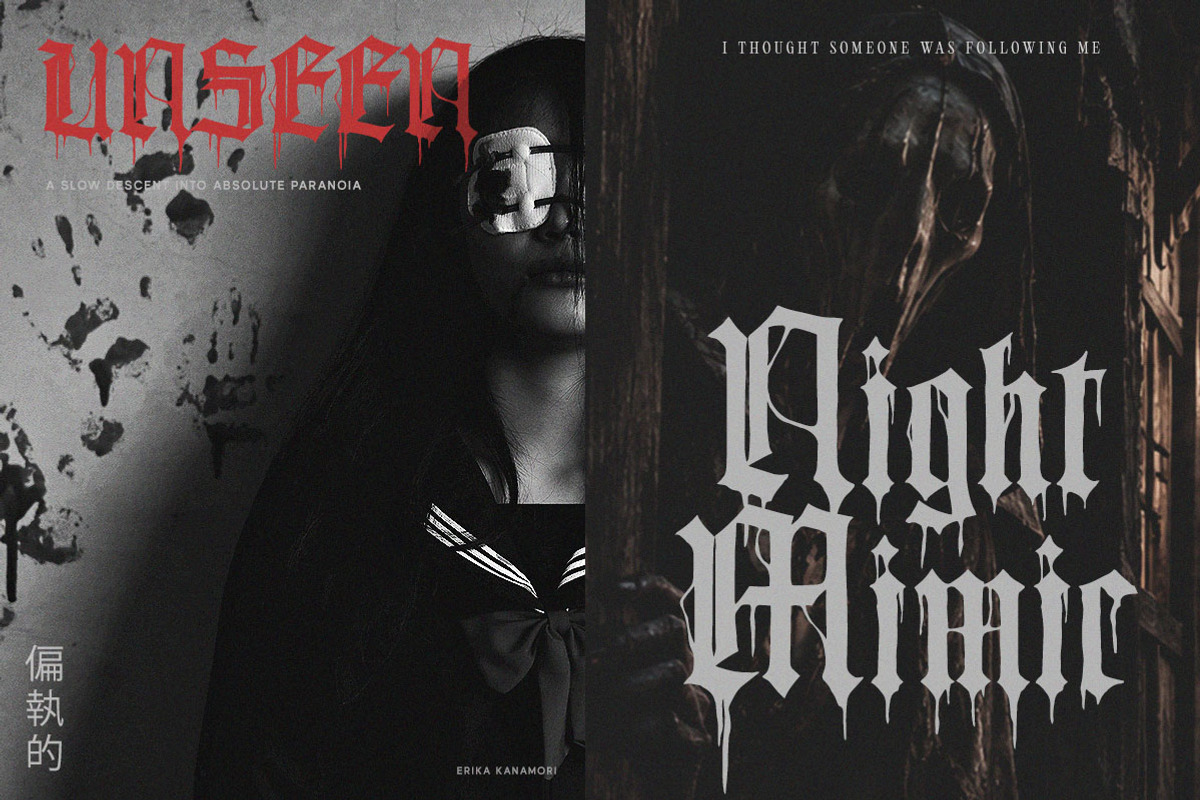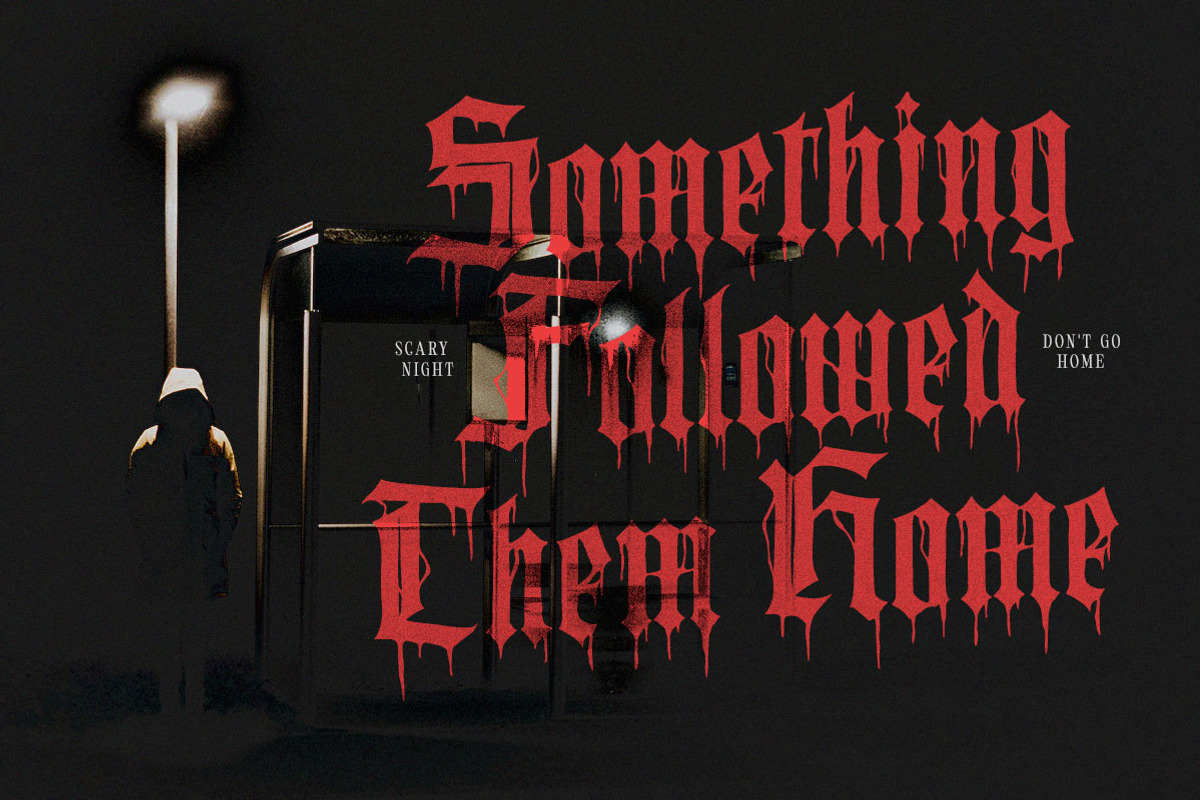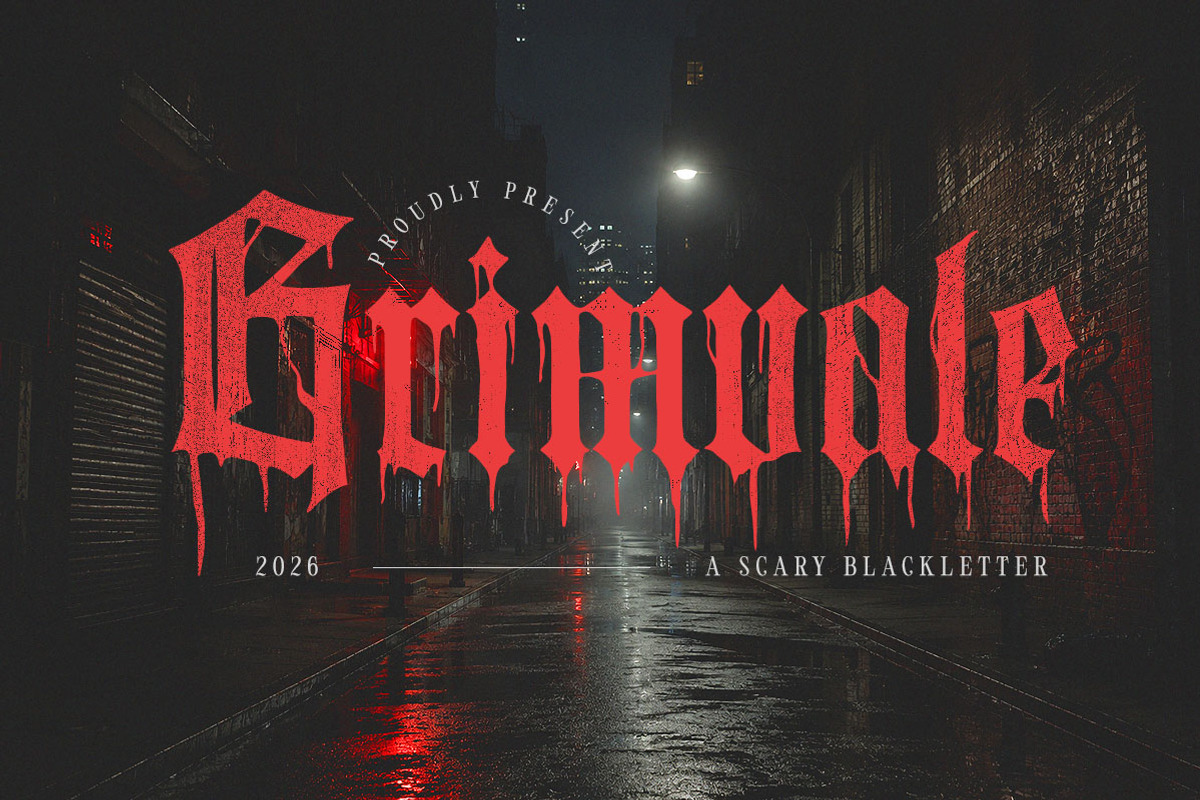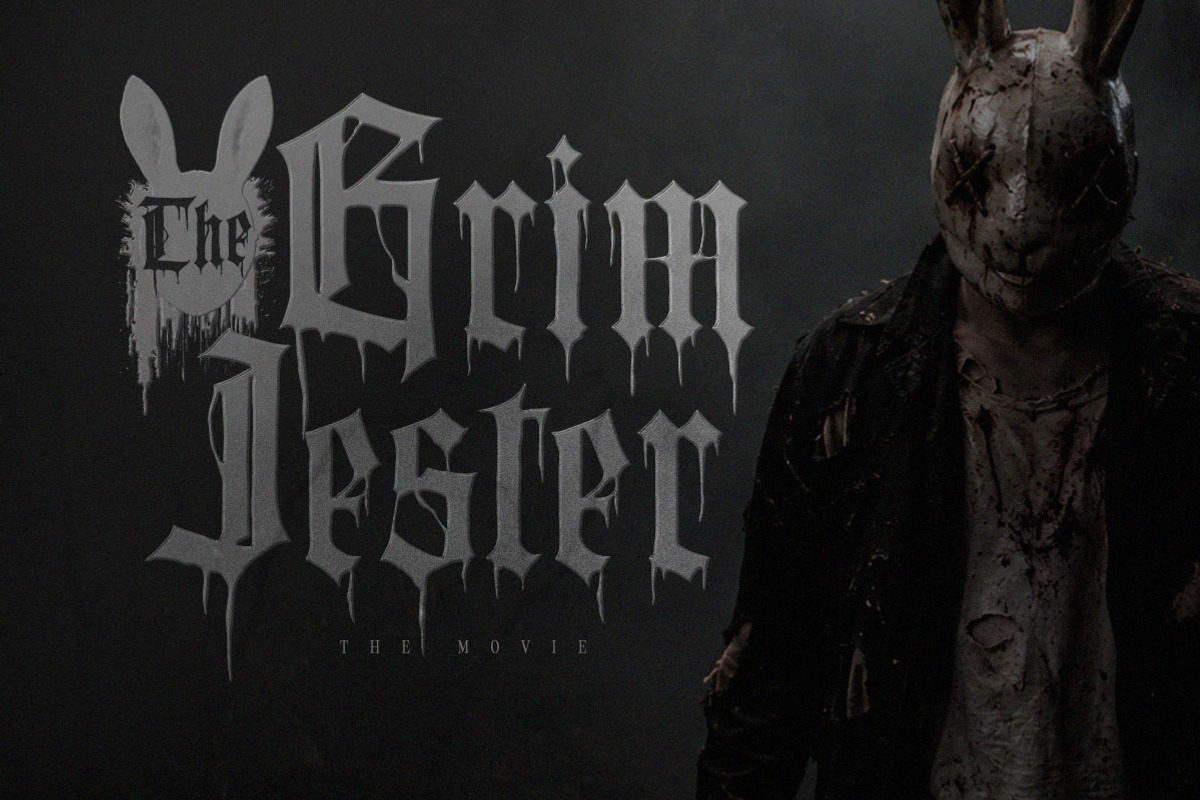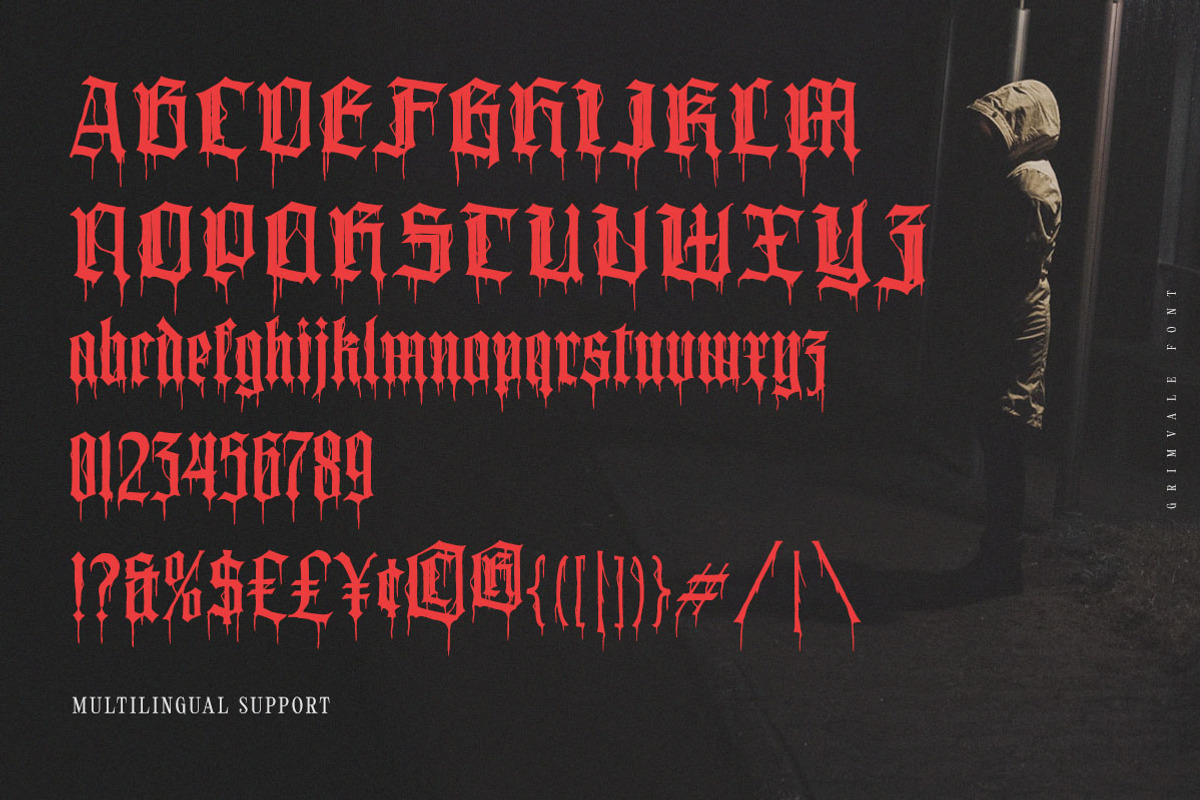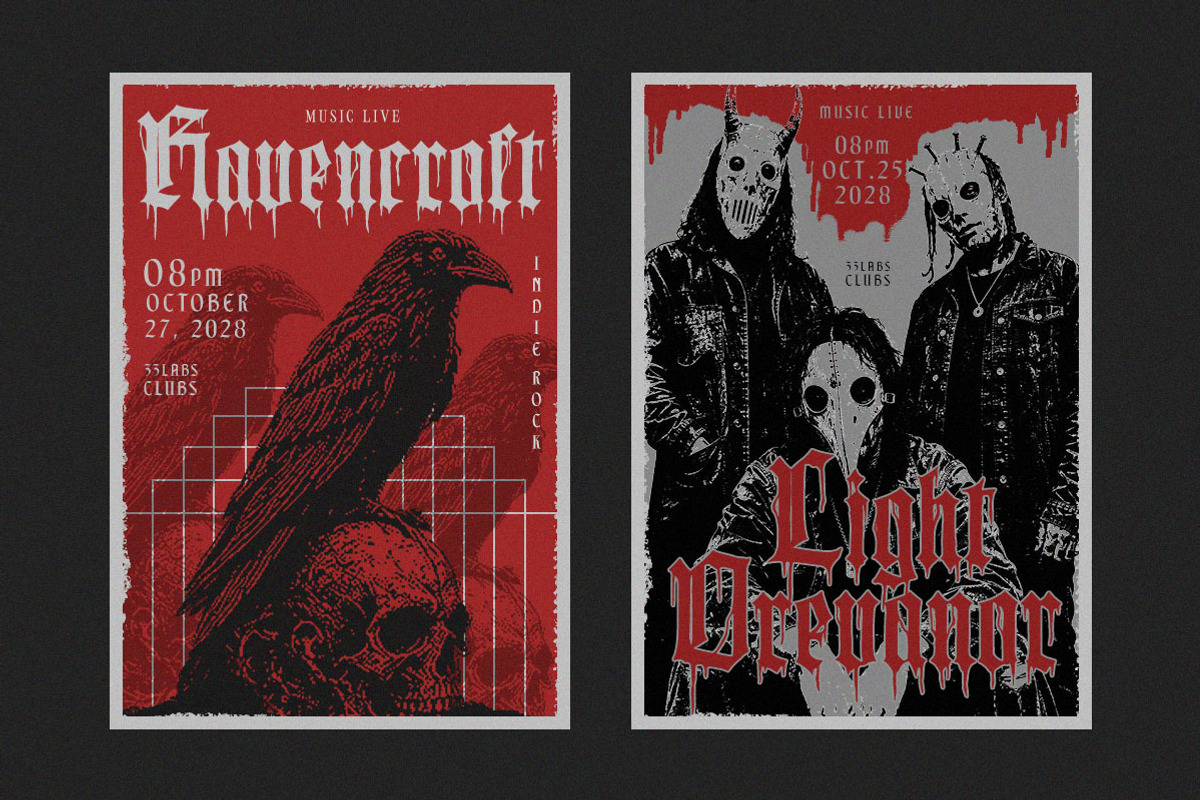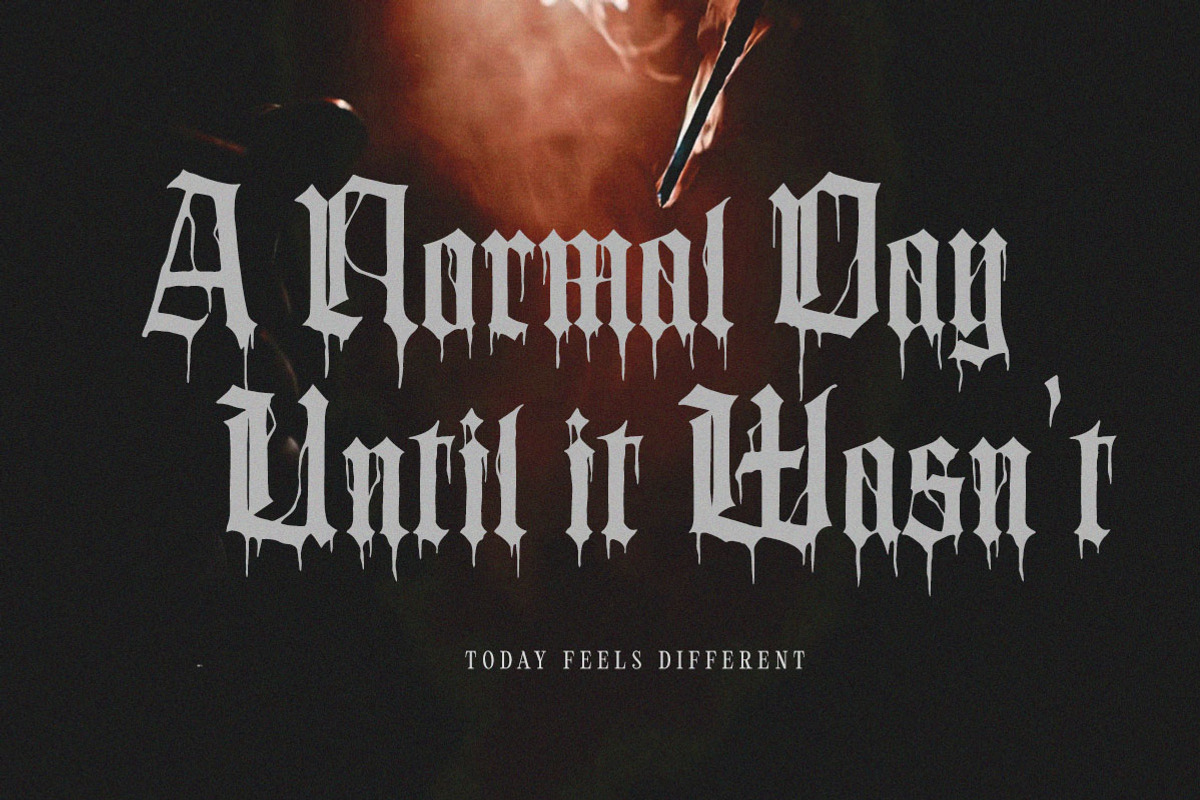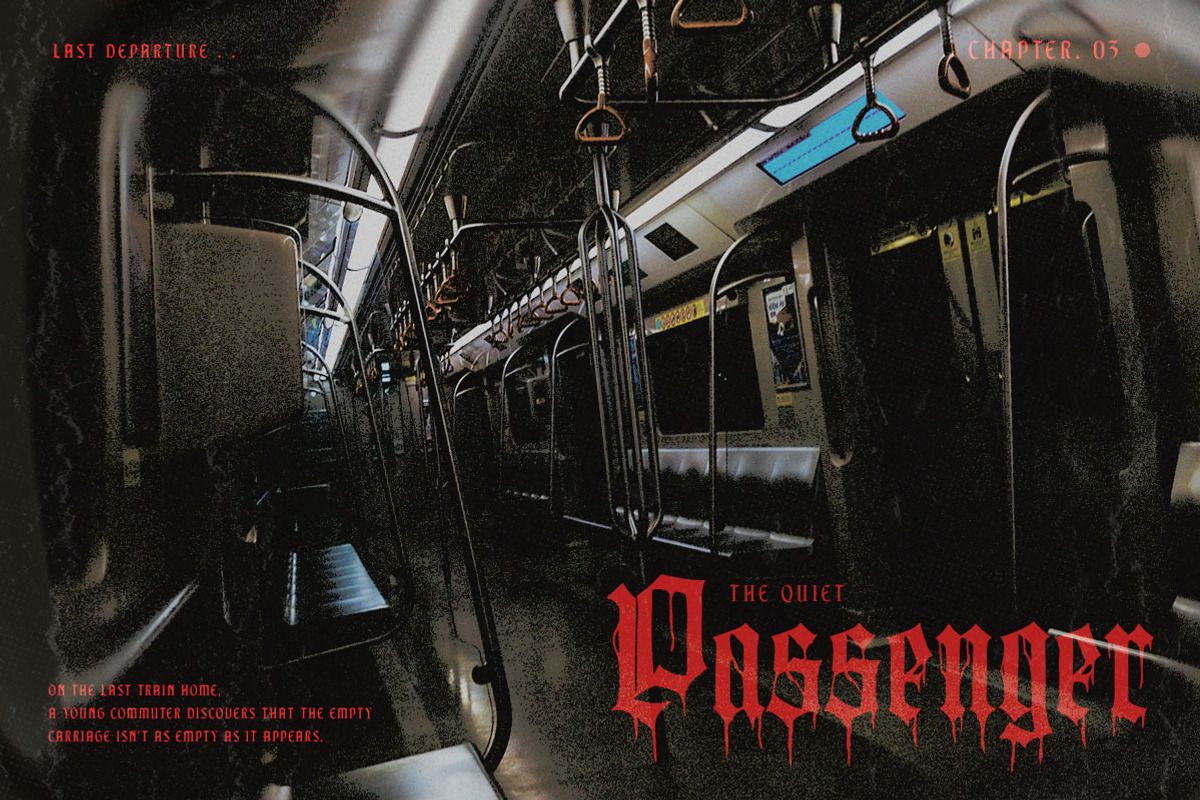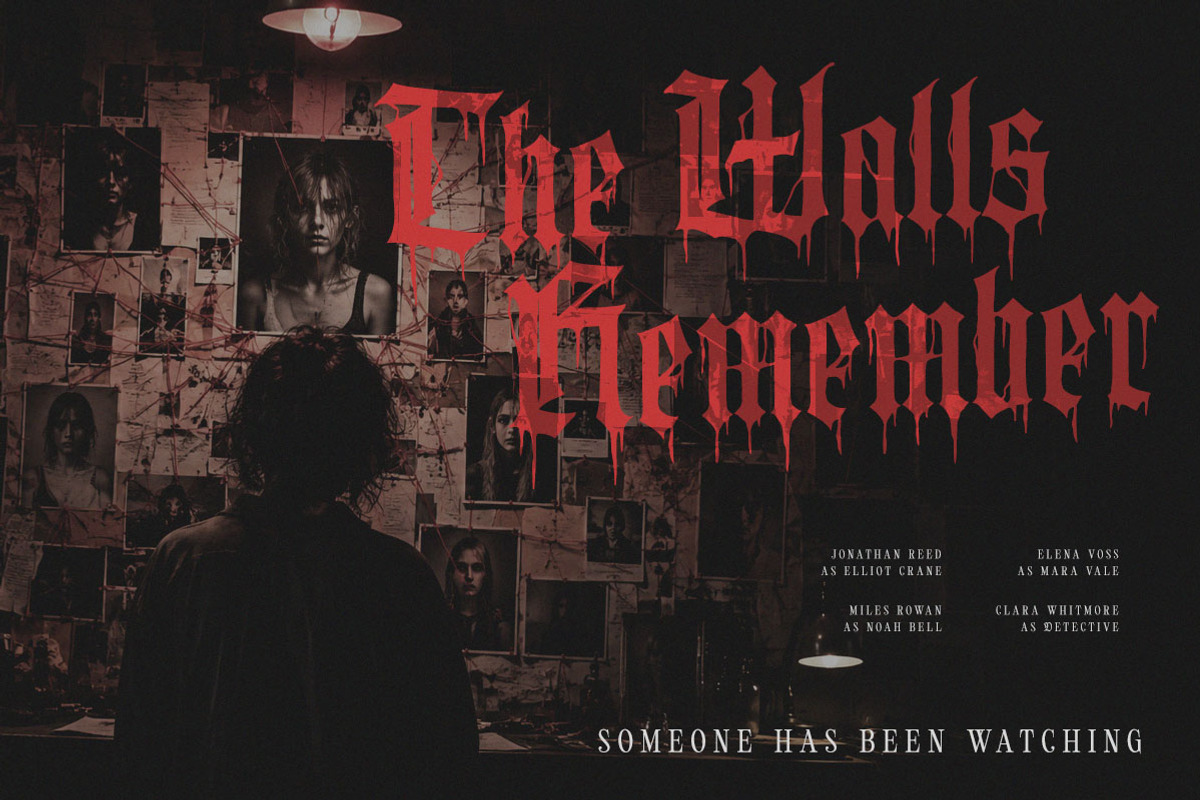
Grimvale Horror Gothic Blackletter
**Grimvale **crawls out of the shadows with a sharp blackletter style built for stories that belong after dark. Tall gothic forms, thorn-like edges, dripping details, and distressed texture give each word the uneasy presence of a forgotten horror poster or a title appearing at the end of a rain-soaked alley.
Uppercase & lowercase
Numbers and punctuation
Alternates & Ligatures